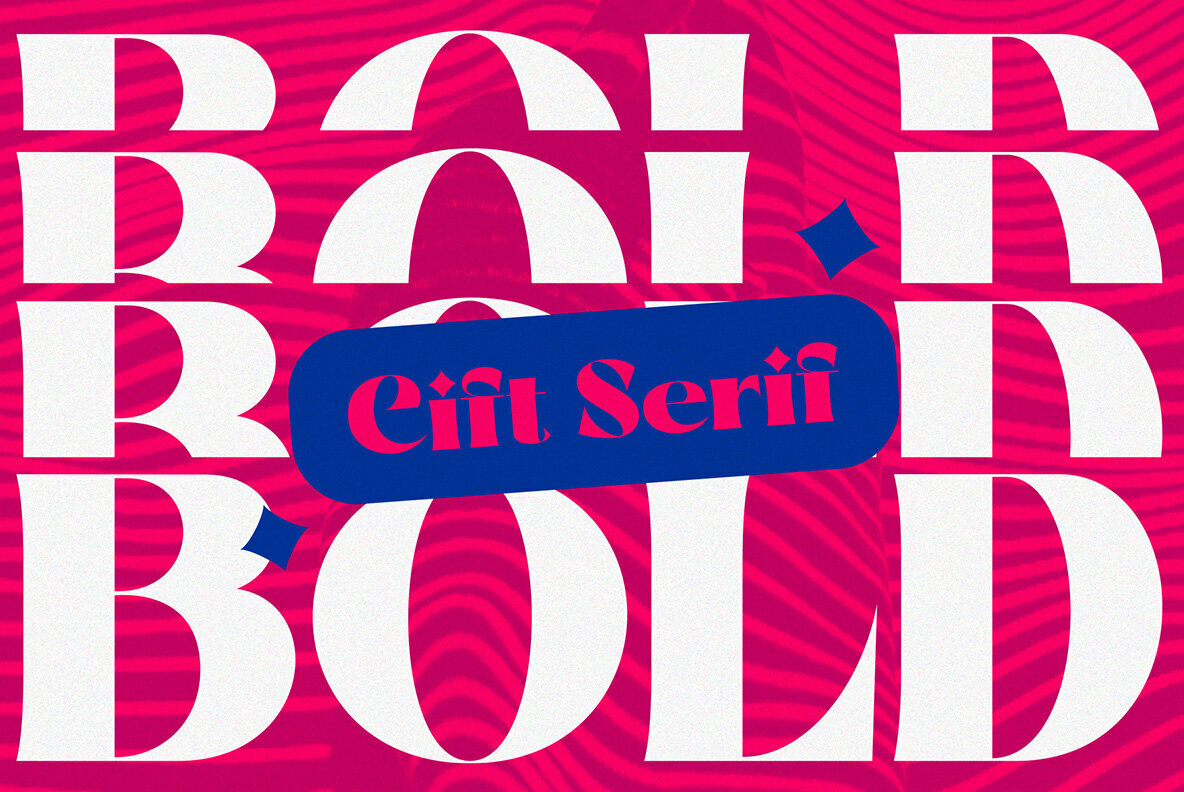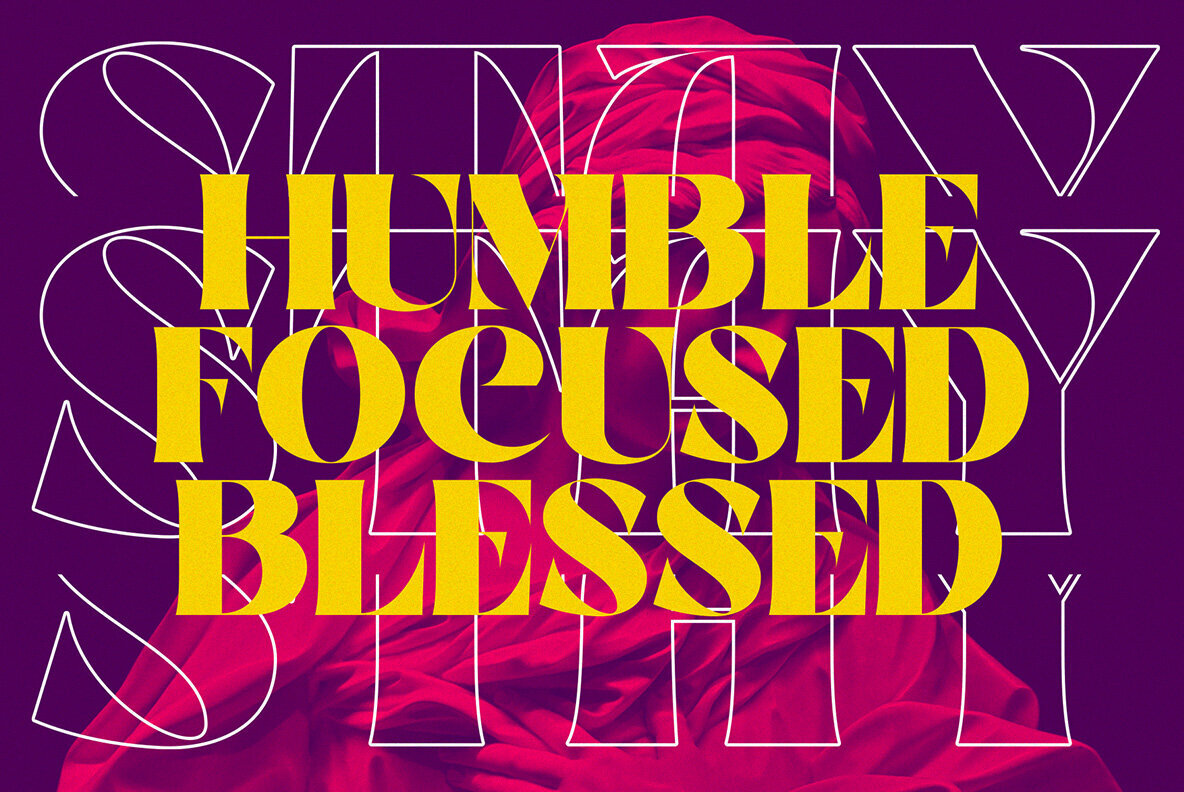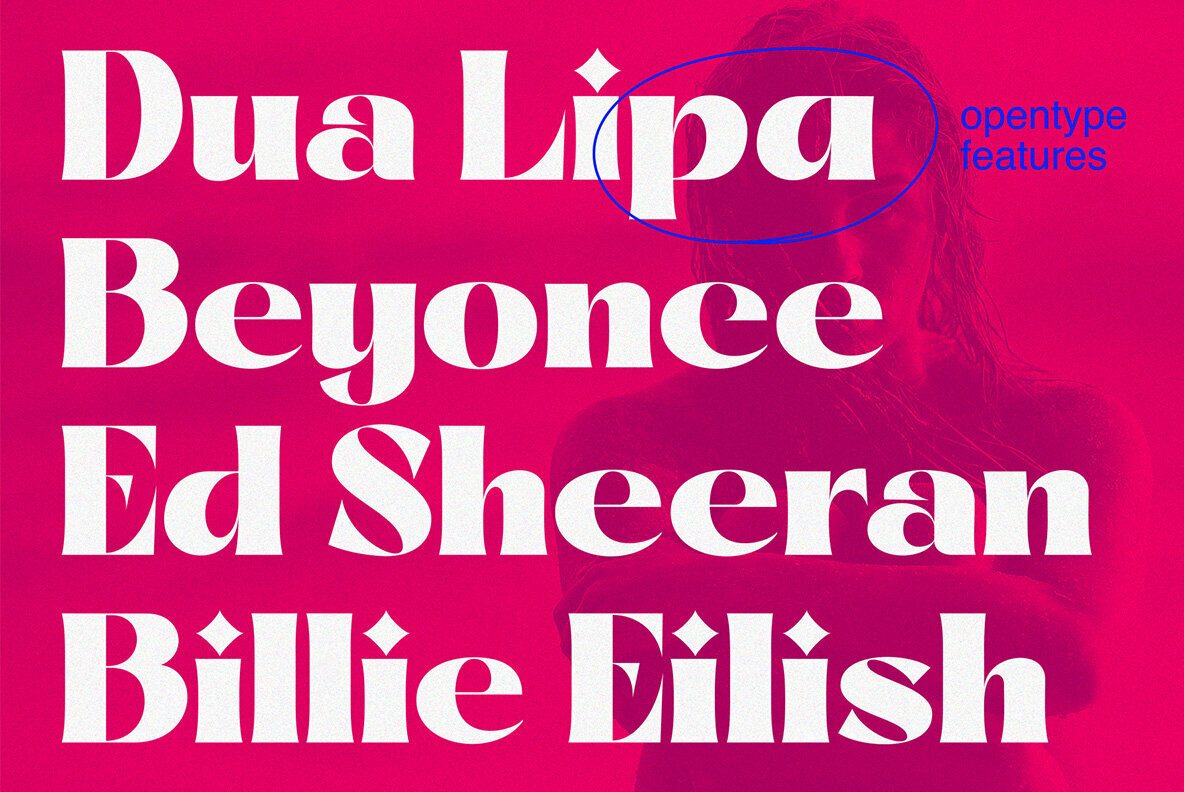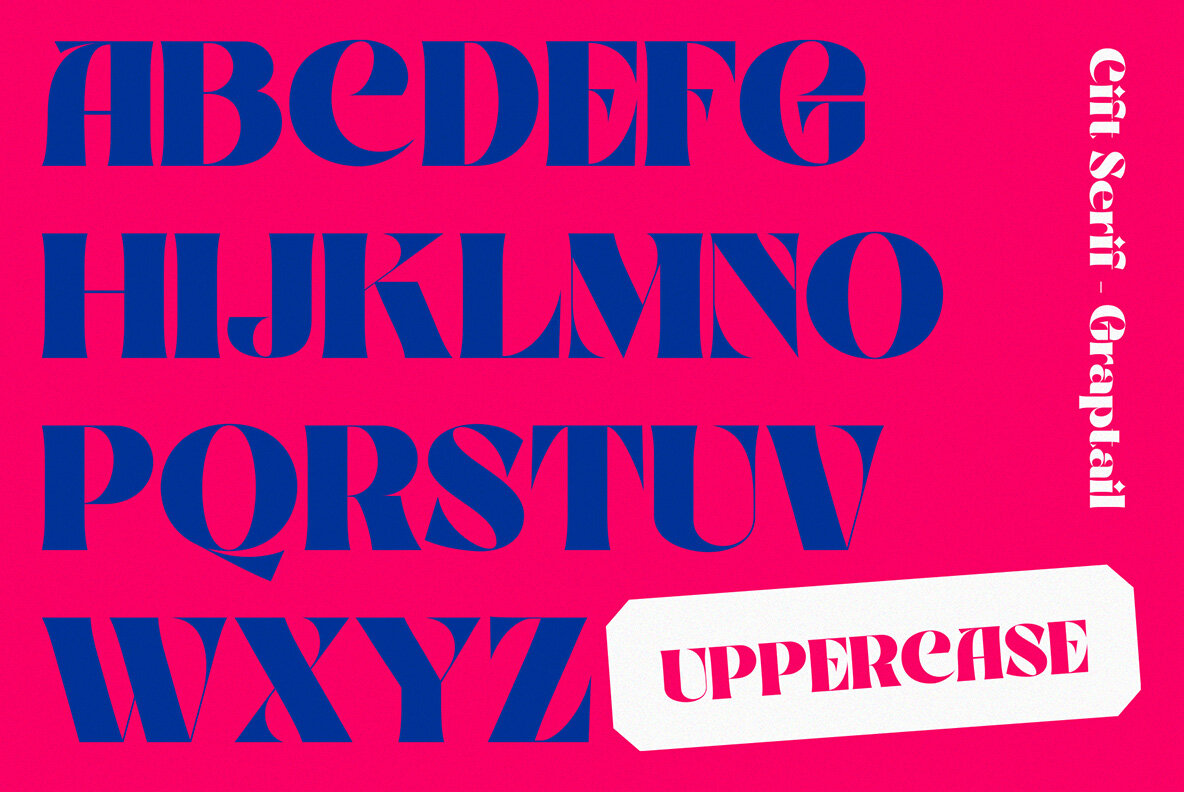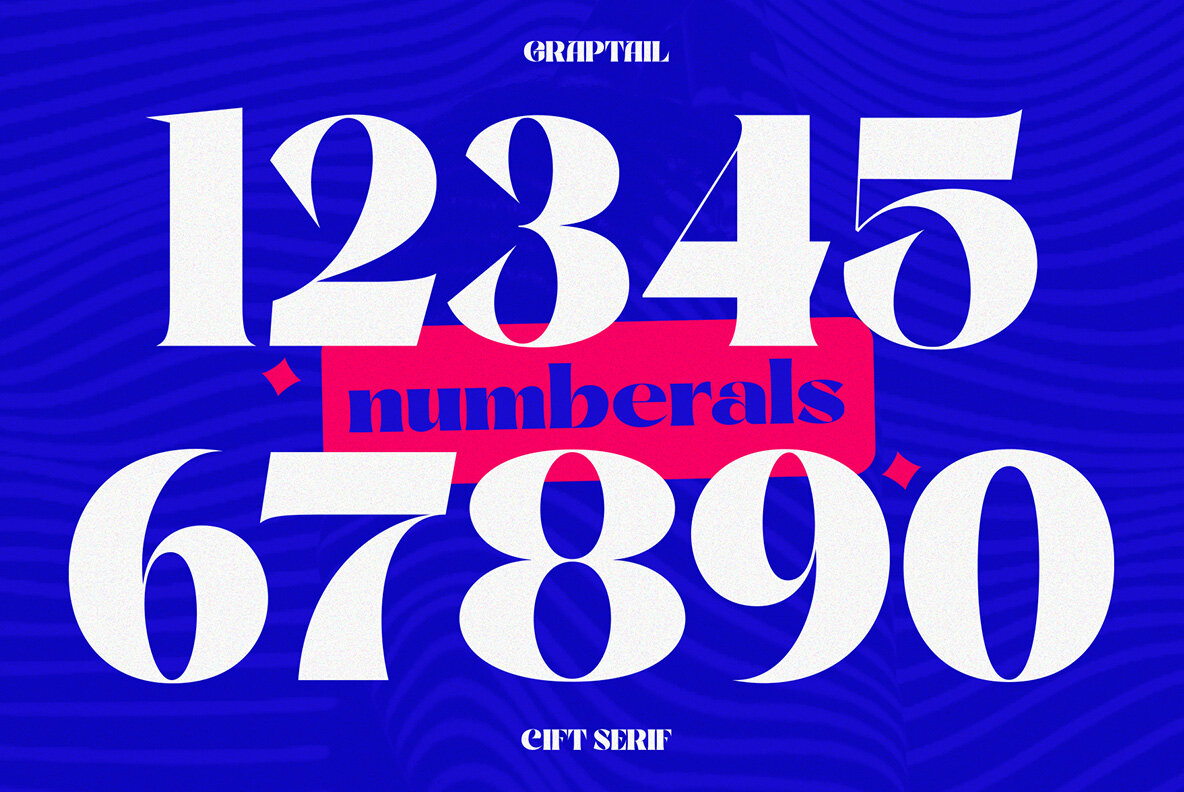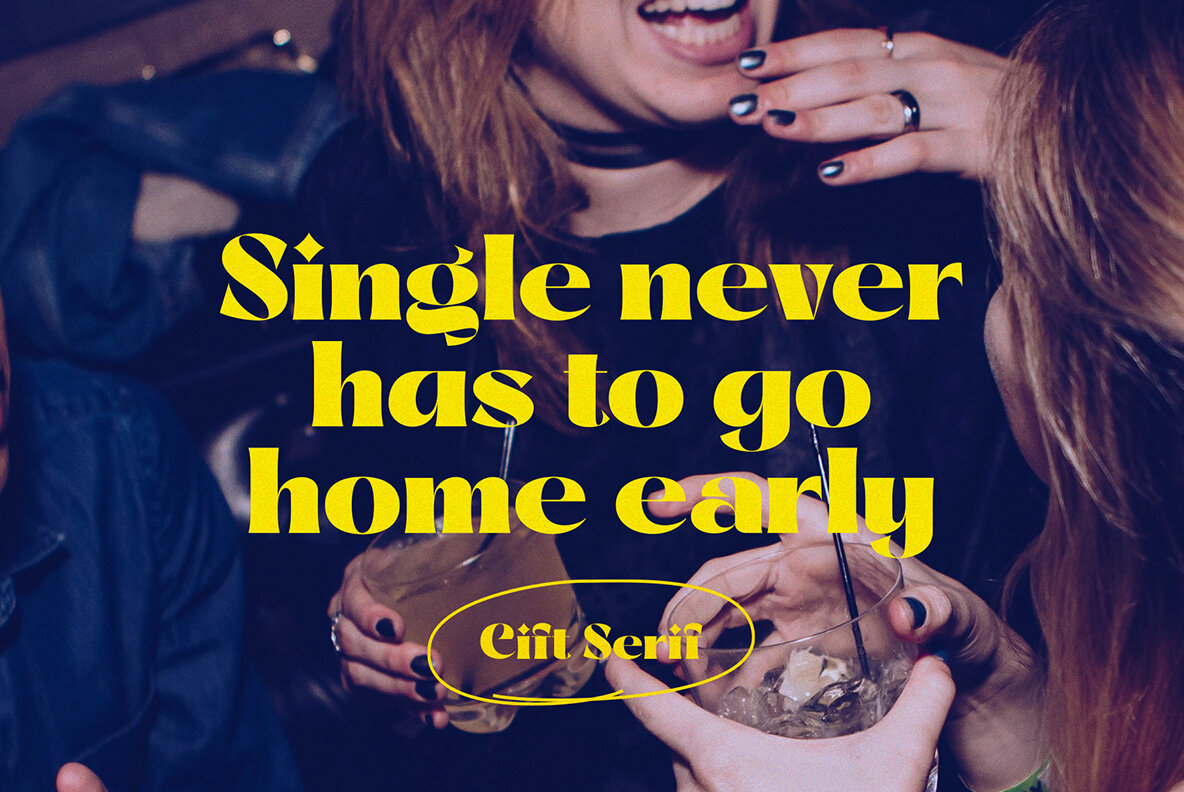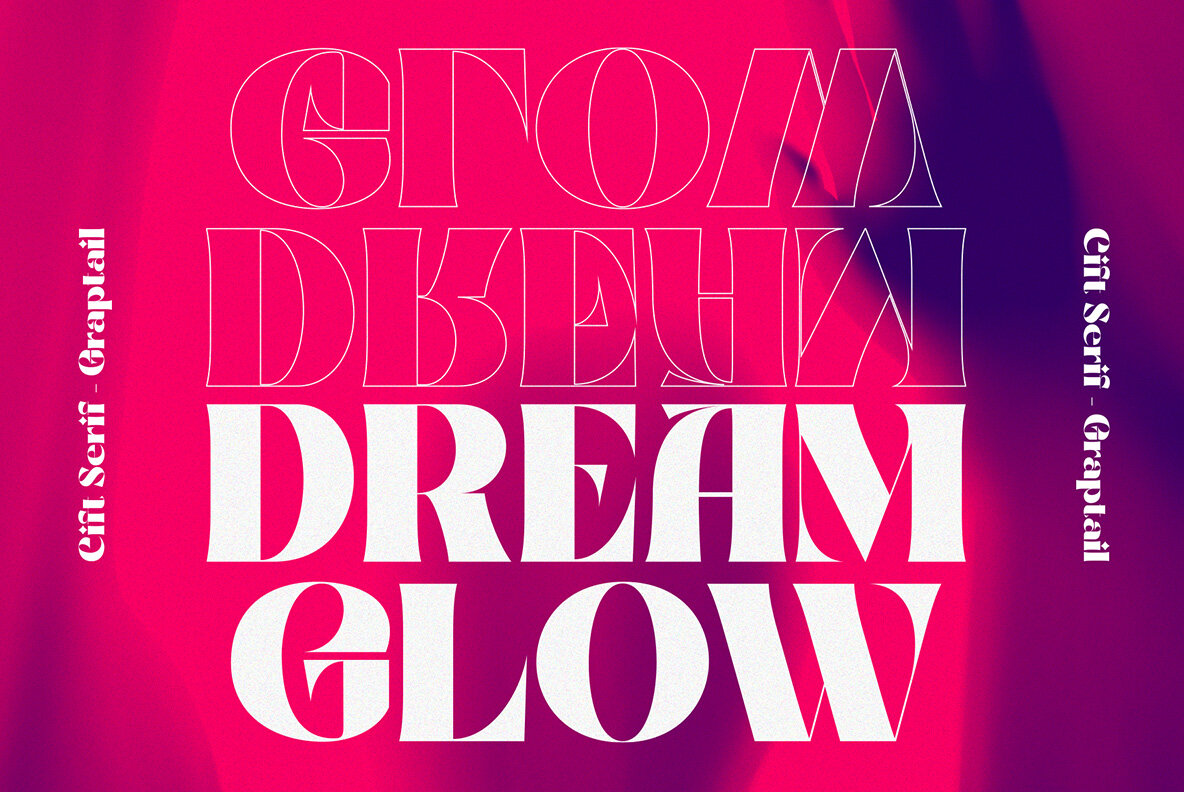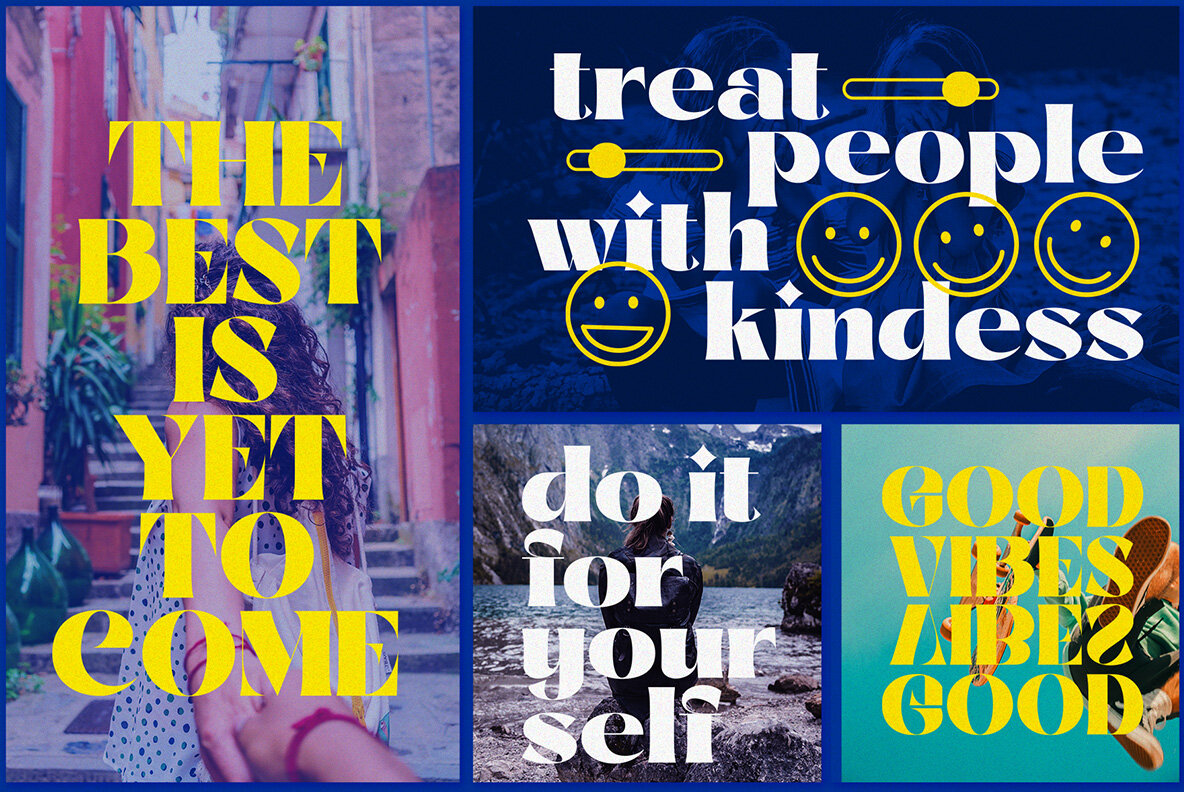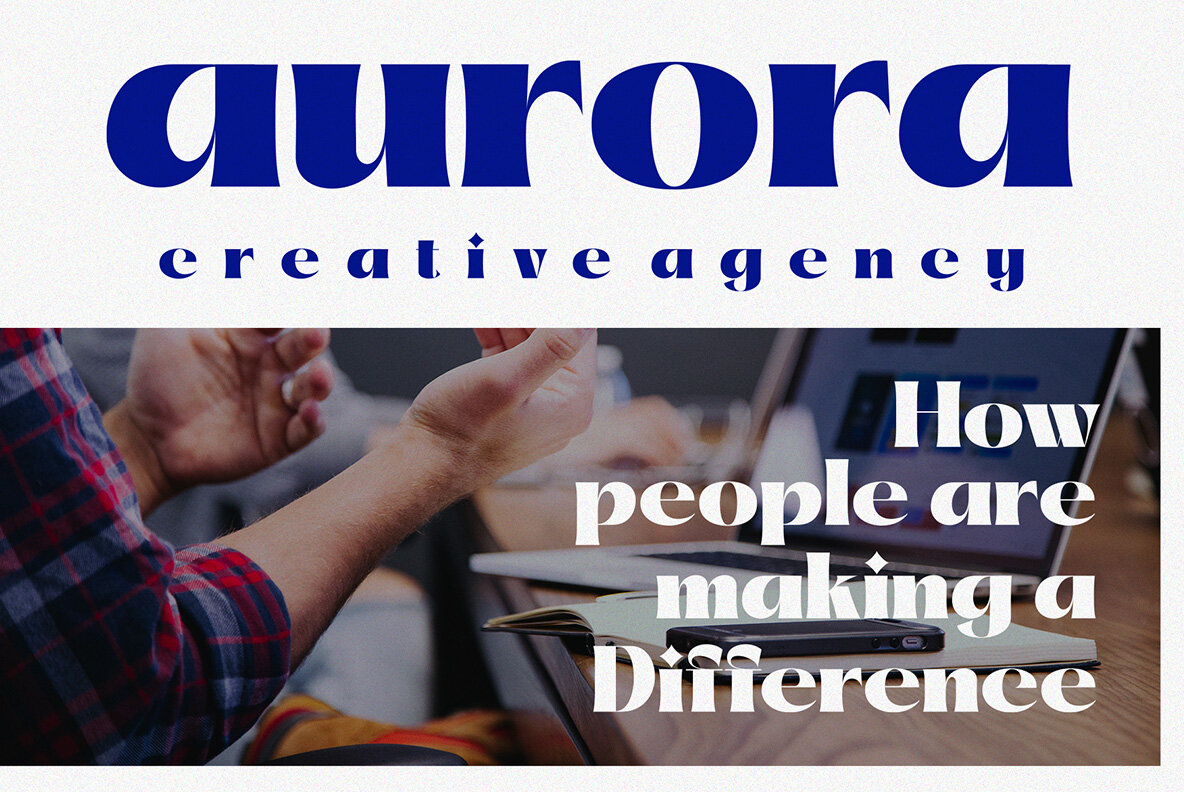
Cift Font
Cift Bold
Cift Serif is inspired by the work of charming lettering artists with a combination of Old Style Display Bold. Each letter is modified so that the distance, width and weight can give the beauty of the alternates given. A passionate curve gives a touch of beauty to this font.
FEATURES:
- All Alternates
- Oldstyle Figures
- Lining Figures
- Localized Forms
- Superscript
- Fractions
- Ordinals